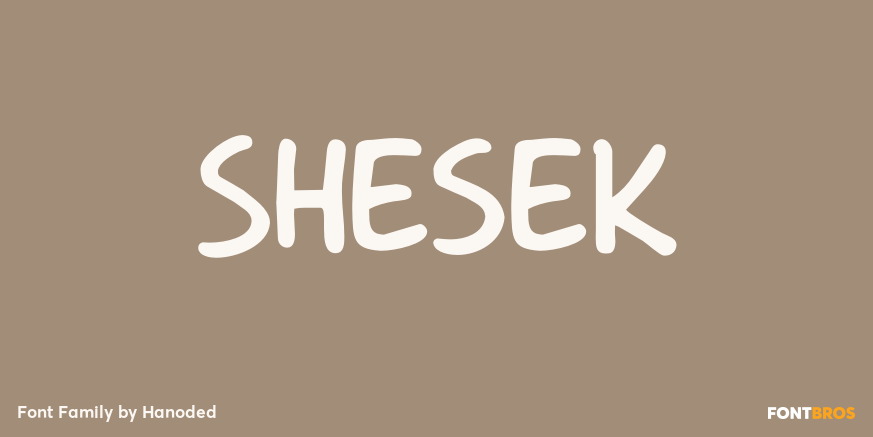
Shesek
About Shesek
Shesek is an informal, loose, handwritten font without any frills. It is deceivingly plain, but when you use it, you will find out that Shesek has a distinct taste, not unlike its namesake, the Japanese plum, or Loquat. The Loquat is a soft, oval, yellow…